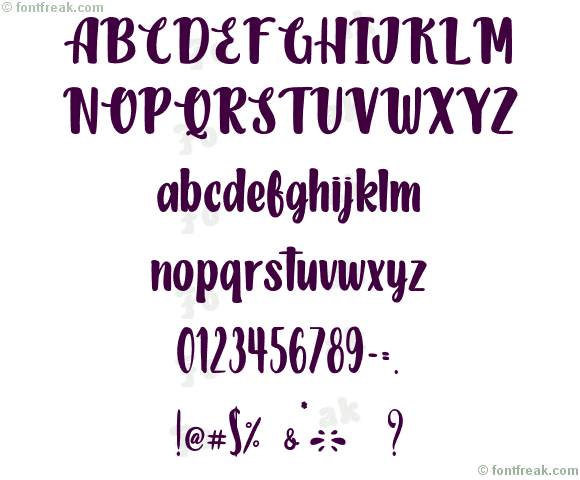
JackSimbaPersonalUse
About JackSimbaPersonalUse
The JackSimbaPersonalUse font, created by Suthi Srisopha, is a striking display typeface that beautifully balances modern aesthetics with a playful essence. This font falls under the category of decorative fonts, characterized by its lively and whimsical strokes that capture attention effortlessly. The stroke weight is consistent, offering a smooth flow, while the rounded edges and slightly exaggerated curves add a sense of friendliness and approachability. Its moderate contrast in letterforms ensures legibility, making it an excellent choice for various design applications.
This versatile font shines in numerous use cases. It is ideal for wedding invitations, where its charming style can evoke romance and joy. Additionally, it works wonderfully for restaurant menus, giving a unique flair that enhances the dining experience. Movie posters can also benefit from the JackSimbaPersonalUse font, providing an eye-catching title that draws viewers in. Content creators will find it perfect for social media graphics, where its playful nature can engage audiences effectively. Small business owners can leverage this font for branding, as it conveys a sense of creativity and individuality.
Targeting graphic designers, small business owners, and content creators, the JackSimbaPersonalUse font offers a rich tool for those looking to make a statement. Its unique style caters to a wide audience, ensuring that various projects can benefit from its distinctive charm.